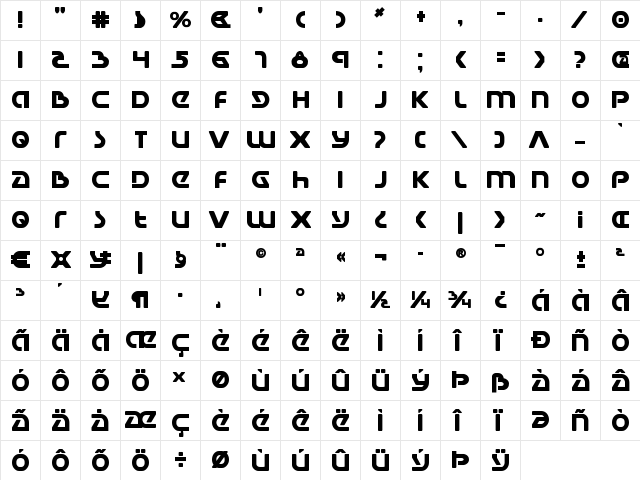
Universal Jack Bold Bold
| Designer | Dan Zadorozny |
Design Context for Universal Jack Bold Typeface
Universal Jack Bold is a composed and adaptable typeface that performs quietly and consistently across a wide range of design contexts. The heavy weight commands attention and anchors typographic hierarchies.